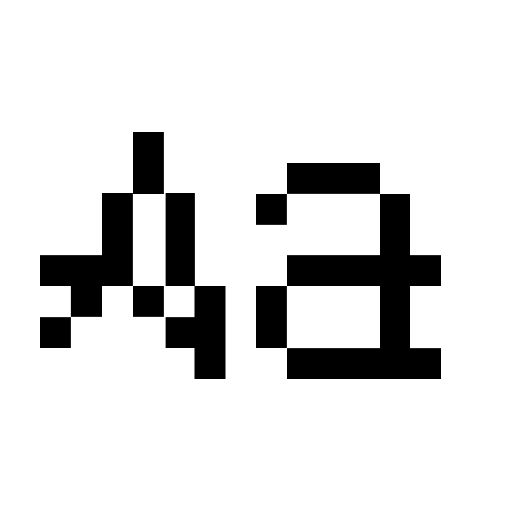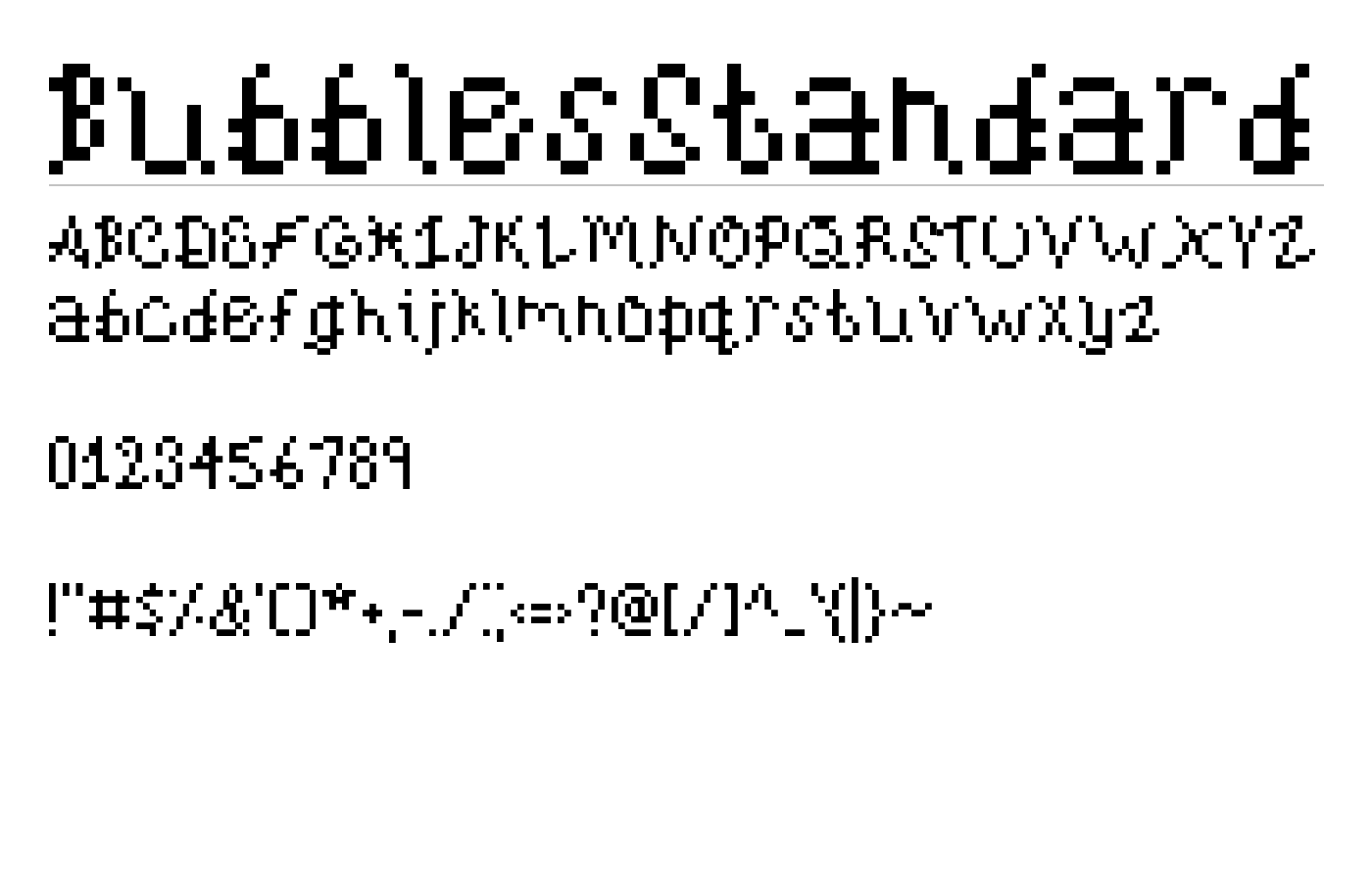
BubblesStandard is a pixel-style, monospaced sans serif font with a retro digital feel, characterized by its blocky, low-resolution letterforms and consistent stroke weight. Its minimalist design and geometric shapes make it ideal for projects that aim to evoke vintage computer screens, video games, or tech-inspired aesthetics. This font works best in digital interfaces, pixel art, coding environments, or playful branding that embraces an old-school, nostalgic vibe.
BubblesStandard Font
About BubblesStandard Font
| Font family | BubblesStandard Font |